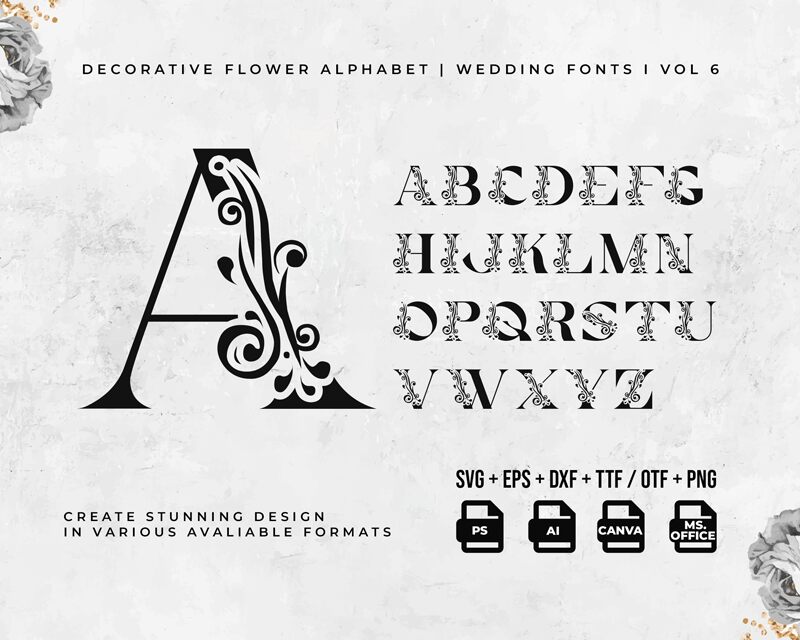
Decorative Quality
Decorative Quality is a display typeface in decorative style designed by Kong Font. This font is characterized by its unusual letters, the serifs of the letters are bold with thick outlines, and it is suitable to be used in logo designing, branding project, advertisements and book titles. It supports Latin language including western and central Europe languages. This is a free font, download it and enjoy its unique style.